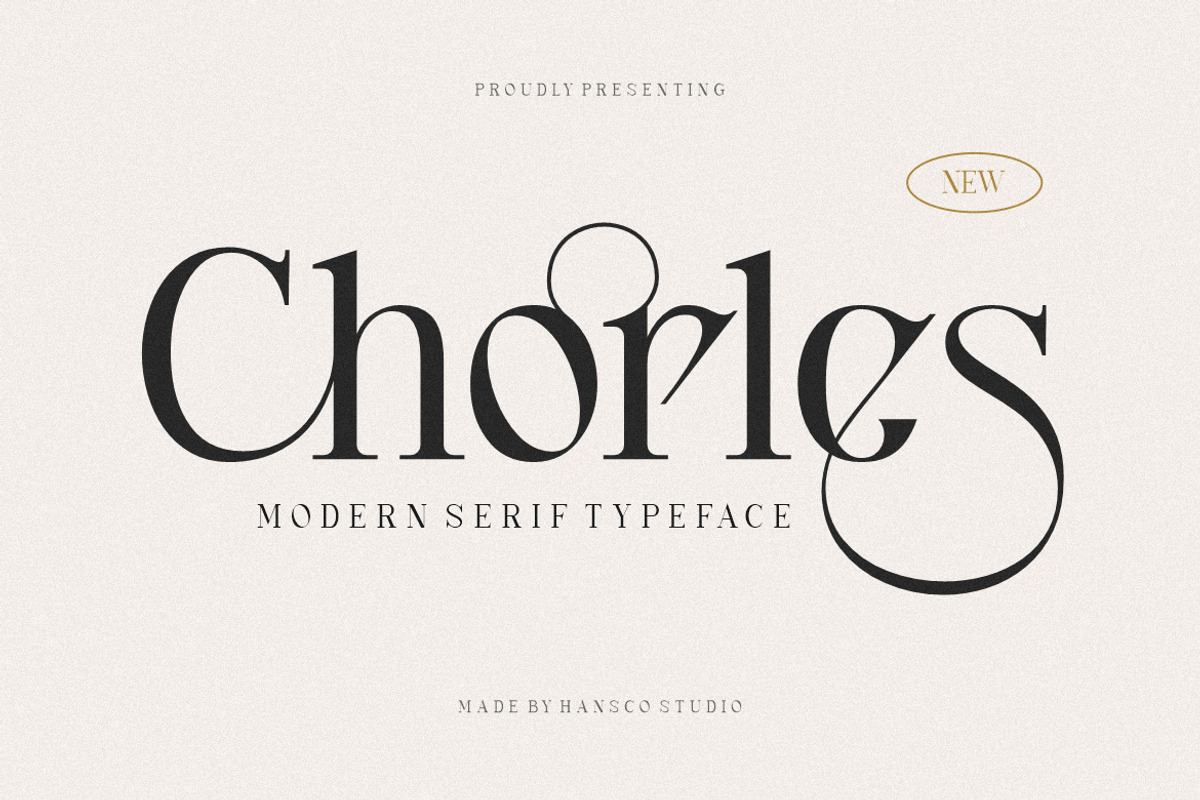
Chorles Font - Classy Font Free Download is a sophisticated and elegant typeface that combines timeless serif design with modern refinement. With its clean lines, sharp edges, and beautifully structured letterforms, Chorles is perfect for upscale branding, luxury packaging, editorial design, logos, and invitations.
This font exudes class and professionalism, making it ideal for projects that require a high-end, polished look. Its balanced proportions and versatile design ensure that it works well across both digital and print formats.